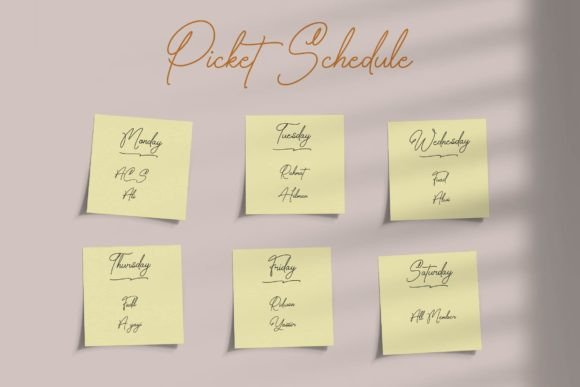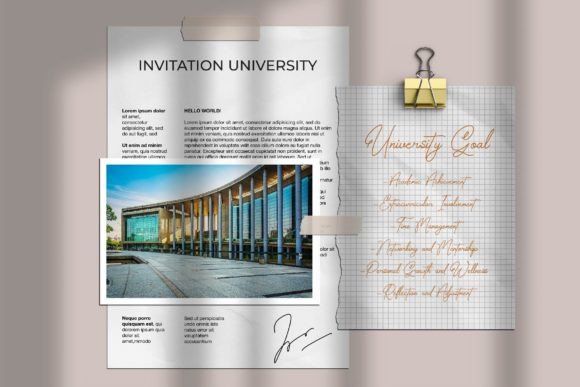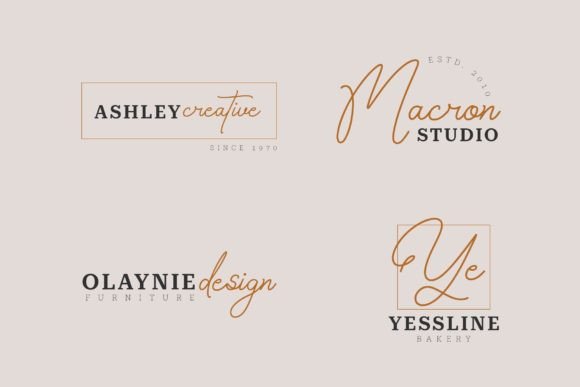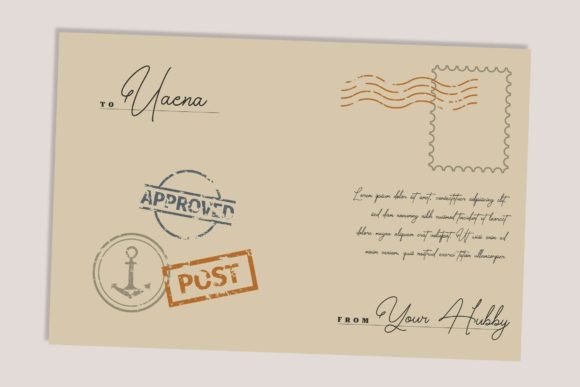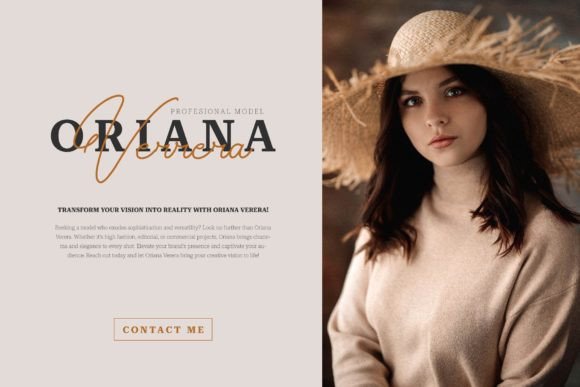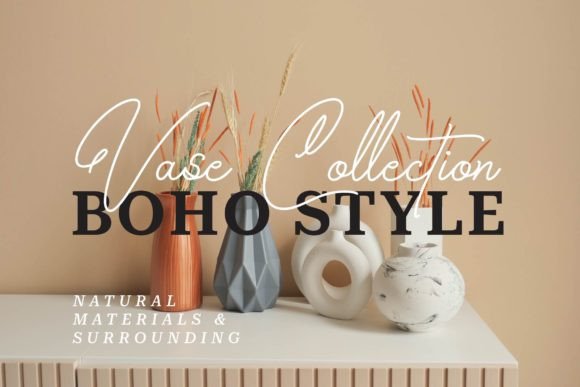
Introduction to Chettalbury Font
Have you ever stumbled upon a beautiful handwritten note from a loved one, and it instantly brightened up your day? That’s the magic of handwritten script fonts like Chettalbury Font. Its elegant and smooth design is sure to capture the essence of any creative project, making it perfect for designers who crave a high-quality, unique look.
As a valuable design resource, the Chettalbury Font is ideal for adding a personal touch to invitations, greeting cards, or logos. Its flowing curves and natural strokes make it a standout choice for creative projects that need a stylish and friendly look. Whether you’re a professional designer or a hobbyist, this font is a must-have for any design project.
Key Features of Chettalbury Font
- High-quality, vector-based font design, ideal for creative projects requiring precision and detail.
- Designed with a unique, elegant aesthetic, making it suitable for a wide range of creative projects, from branding to publishing.
- Can be easily scaled and manipulated without compromising its high-quality design, making it an excellent choice for designers working on complex projects.
Honest Review: Chettalbury Font
As a designer, I’m always on the lookout for high-quality fonts to elevate my creative projects. Recently, I stumbled upon the Chettalbury Font, which I’ll be reviewing today.
- ✨ The font’s unique style and high-quality rendering make it perfect for creative projects that require a touch of sophistication.
- ⚠️ The font may not be suitable for very small text sizes, as the characters can appear slightly pixelated.
- ⚠️ The font’s unique style may not be to everyone’s taste, so it’s essential to test it in your specific design project before committing to it.
Overall, I’m impressed with the Chettalbury Font. Its high-quality design and transparent background make it an excellent addition to any designer’s toolkit. While it may have some limitations, I believe it’s a valuable design resource that’s worth exploring further.
Tips for Getting the Most Out of Chettalbury Font
For a transparent background, use a design software that supports layer styles or alpha channels. Experiment with different font sizes and styles to achieve the desired look for your creative project. You can also combine the Chettalbury Font with other design elements for a unique visual effect.
The Chettalbury Font is suitable for a variety of design projects, including logos, business cards, brochures, and social media graphics. Its elegant and sophisticated design makes it perfect for high-end branding and marketing materials.
Alternatives to Chettalbury Font
Great Vibes is a high-quality, elegant script font that’s perfect for creative projects requiring a touch of sophistication. It’s available for free download and can be used for various design elements, including logos and quotes. When to use: For weddings, luxury brands, or any project that demands a premium feel. Compared to Chettalbury Font, Great Vibes has a more refined and polished look, making it ideal for high-end designs.
Alex Brush is a beautiful, handwritten font that works well for creative projects requiring a personal touch. It features a transparent background, making it easy to layer with other design elements. When to use: For personal projects, such as invitations, cards, or blog headers. Compared to Chettalbury Font, Alex Brush has a more whimsical and artistic feel, making it perfect for projects that need a unique touch.
Carolyna Pro is a high-quality, modern script font that’s ideal for design projects requiring a sleek and sophisticated look. It’s available for free download and can be used for various design elements, including titles and headings. When to use: For corporate projects, such as business cards, brochures, or presentations. Compared to Chettalbury Font, Carolyna Pro has a more contemporary and professional feel, making it perfect for business and corporate designs.